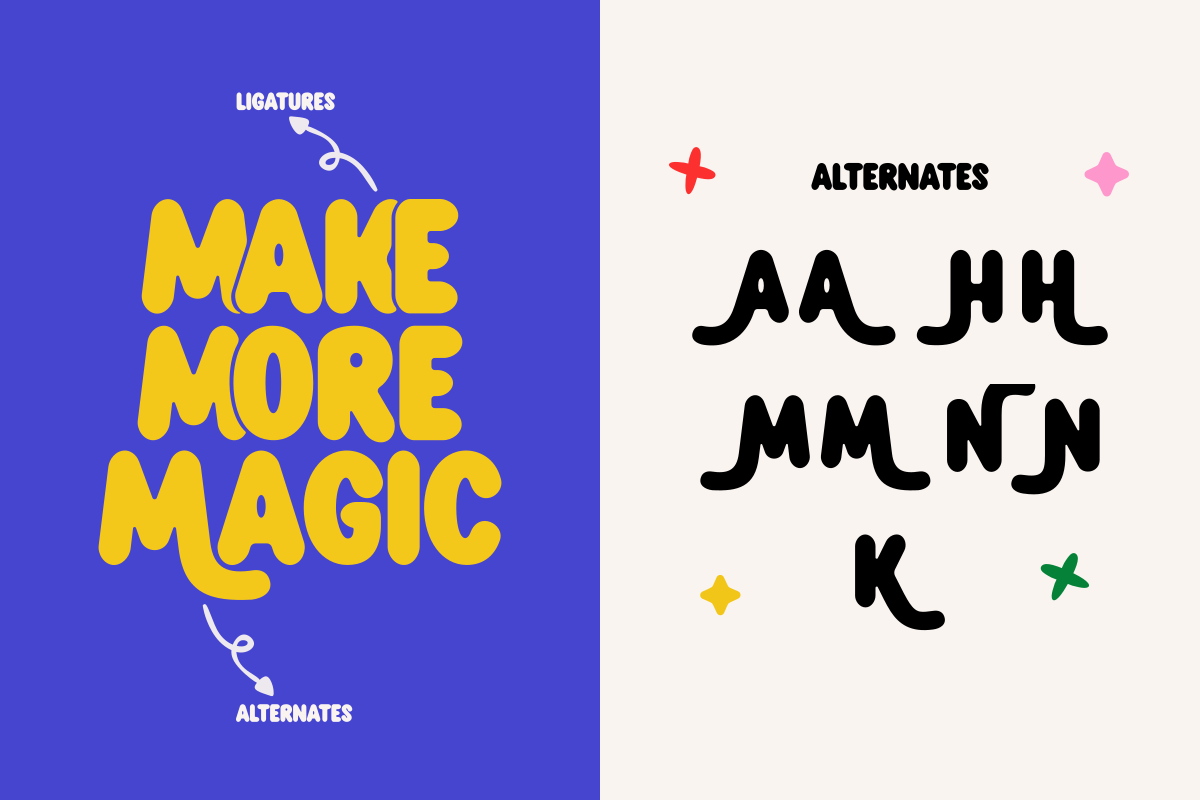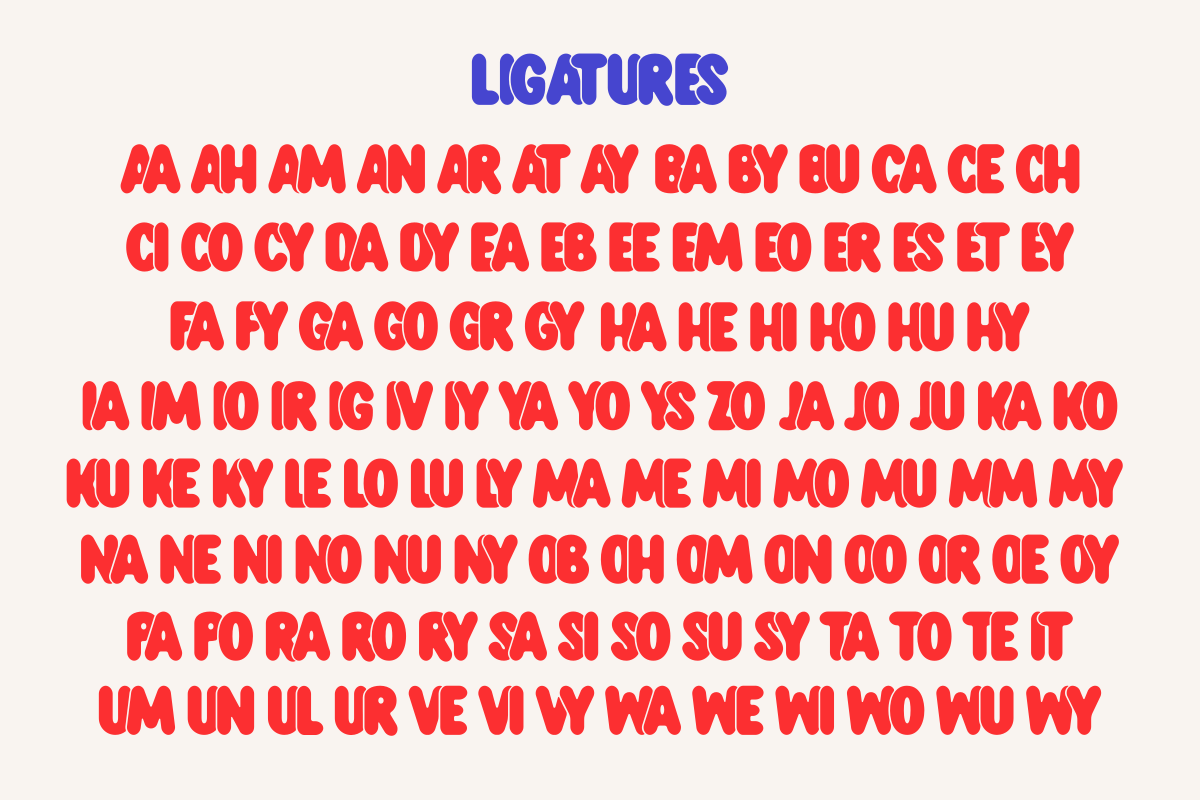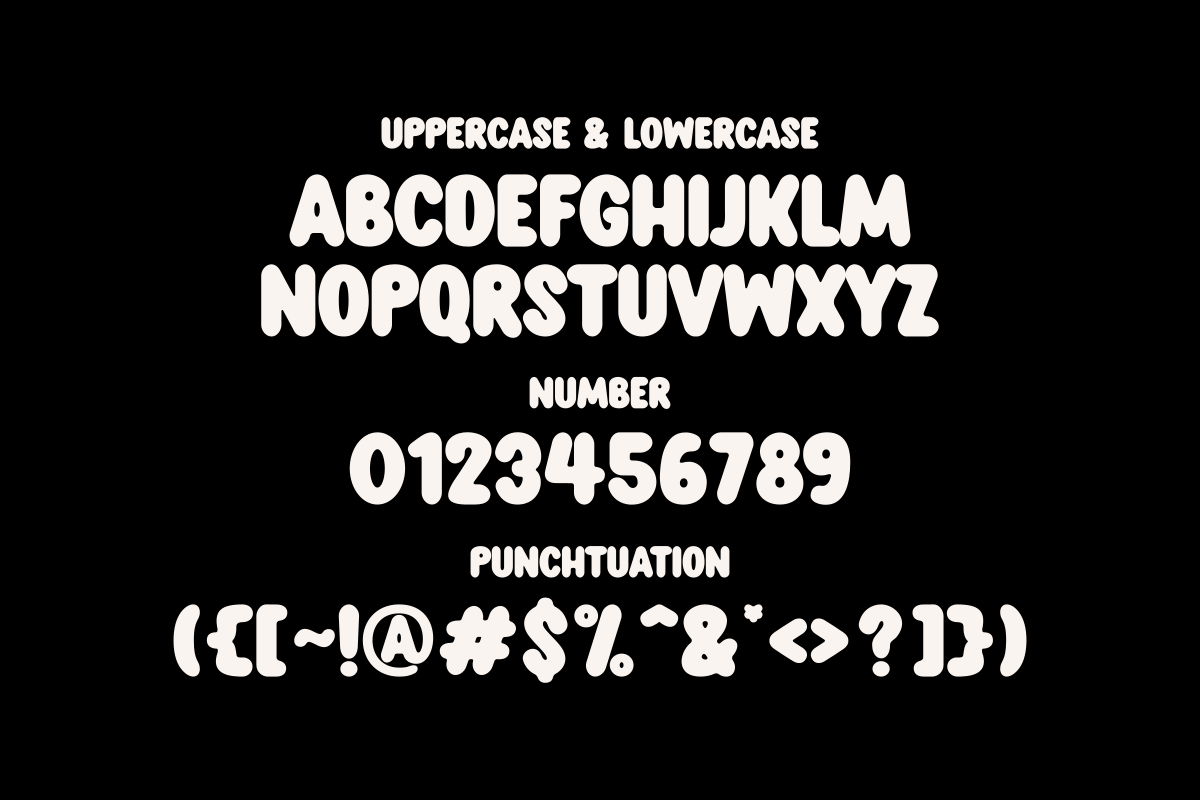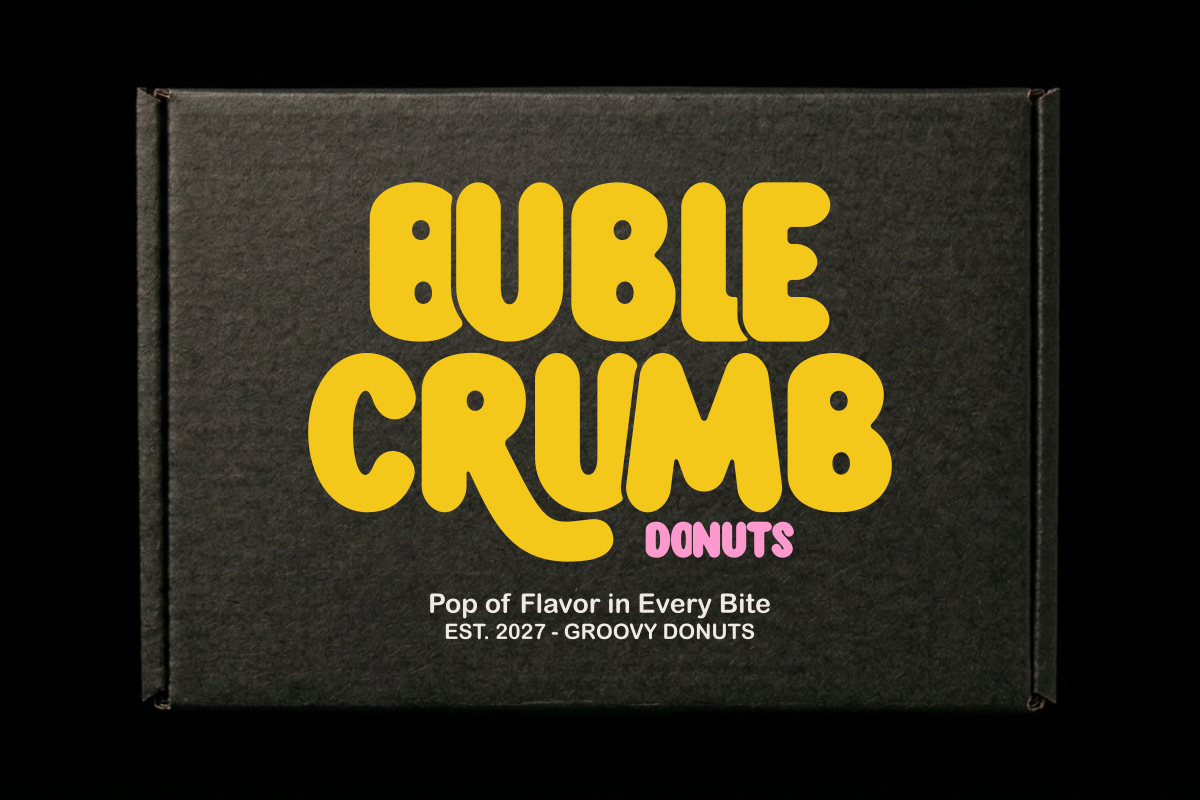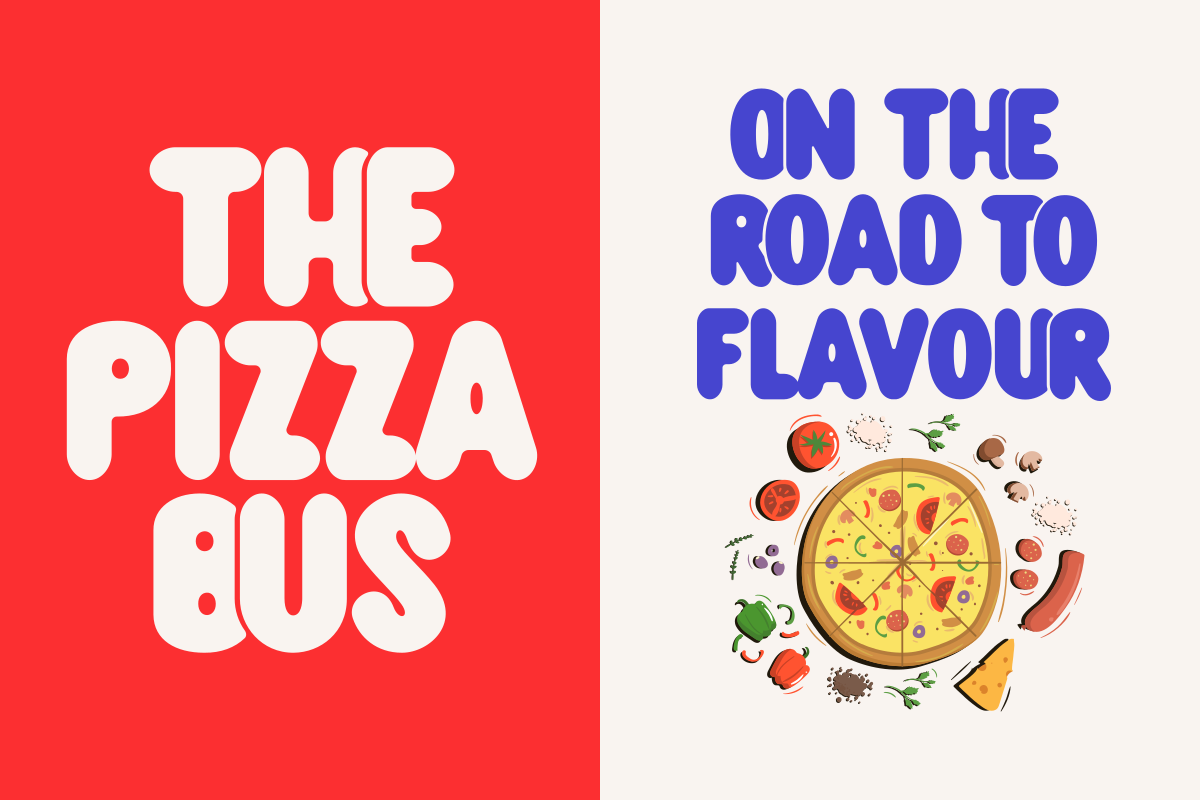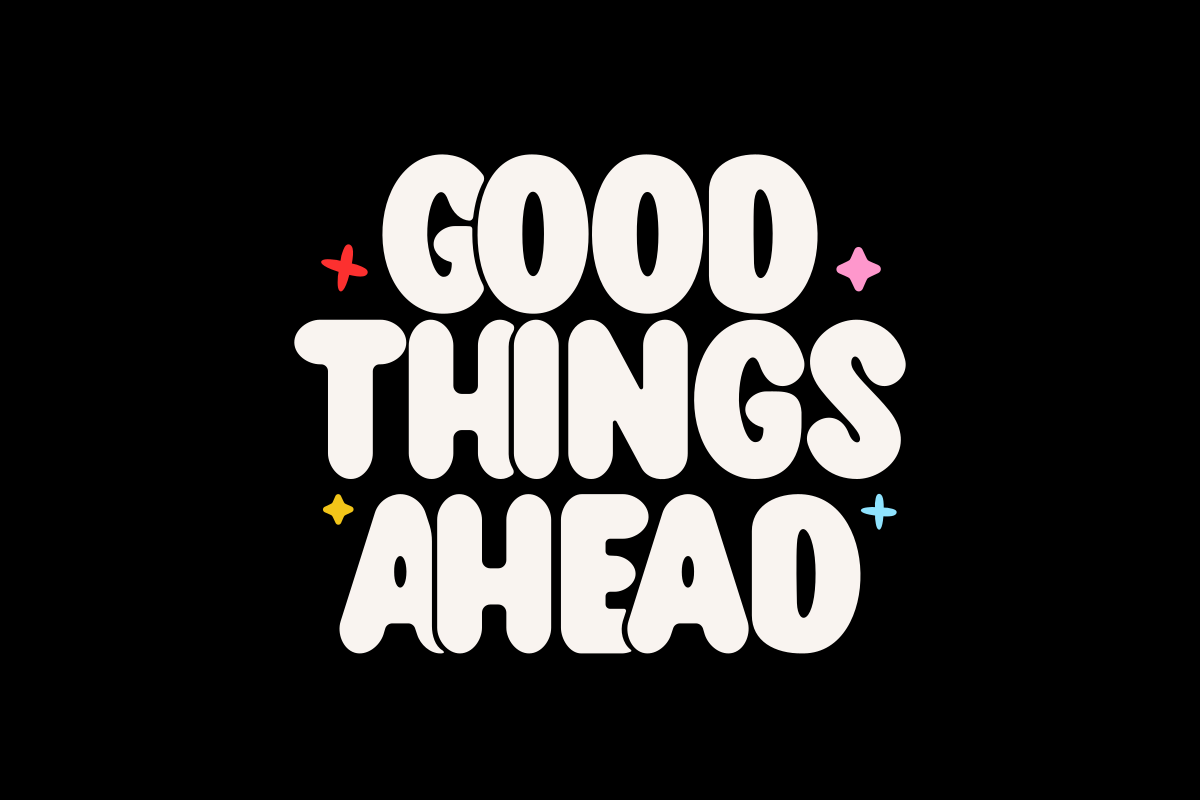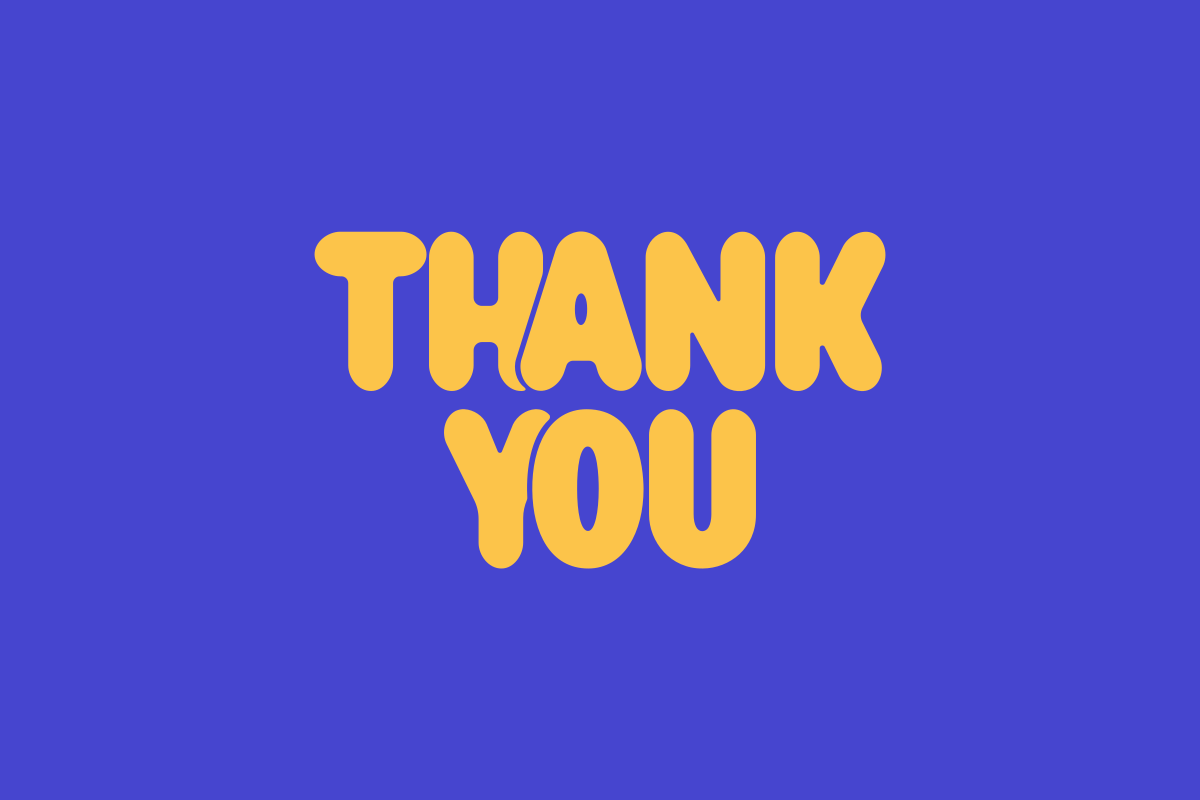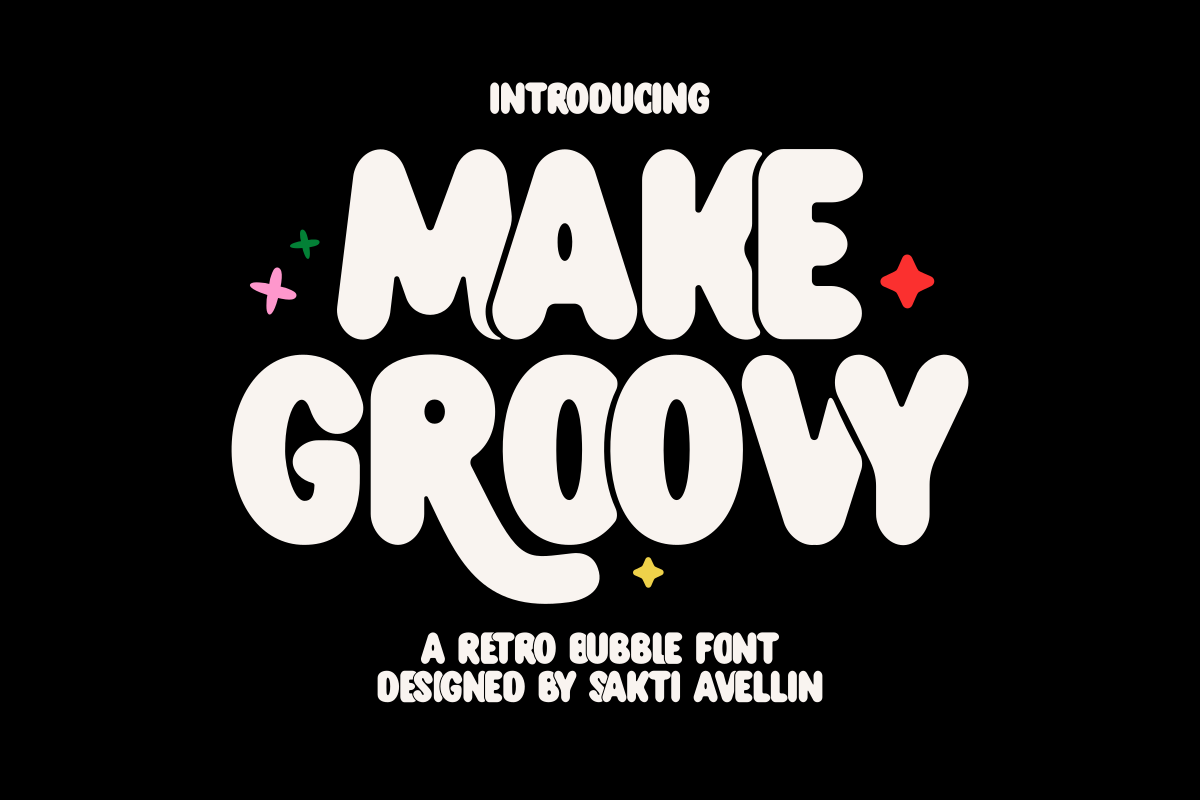
Make Groovy - Retro Bubble Font
Make Groovy is a vibrant and fun retro bubble font designed to bring a nostalgic 70s energy to your creative projects. This charming display typeface features thick, curvy, and bubbly letterforms that effortlessly capture a joyful and free-spirited vibe. Perfect for retro branding, psychedelic posters, funky apparel, stickers, and social media graphics, this font ensures your headlines stand out with a unique, handcrafted personality. Whether you are designing for seasonal events, music festival promos, or cheerful stationery, Make Groovy adds a lively and artistic touch to every design.